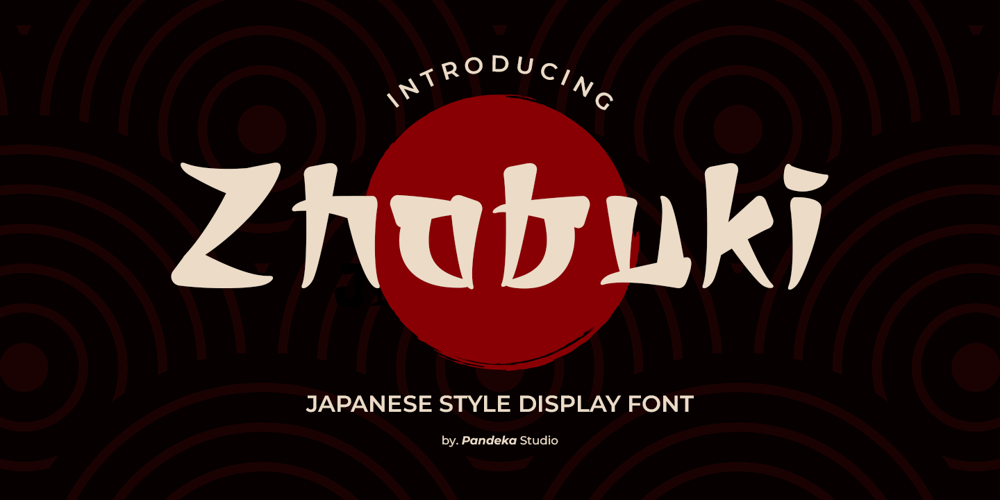
Zhabuki Font Family was designed by Sagara Nararya and published by Pandeka Studio. Zhabuki contains 2 styles and family package options. Konnichiwa and Annyeonghaseyo! 🌸✨Introducing Zhabuki, a stunning display font inspired by the beauty of Japanese and Korean aesthetics. Combining traditional East Asian charm with a modern touch, Zhabuki is the perfect choice for bringing authentic Asian vibes into your designs.Each letter in Zhabuki is carefully crafted, blending traditional artistic elements with contemporary styles. With 30+ unique ligatures and alternates, you can easily create distinctive and captivating typography compositions. This font is ideal for branding, posters, packaging, social media designs, and so much more!What makes Zhabuki even more special is its 30+ unique ligatures, multilingual support, allowing you to communicate your message effectively to a global audience.What’s Included: Main Files formats 2 Styles: Regular and Outline Full Character Set: Uppercase, lowercase, numbers, symbols, and punctuation 30+ Unique Ligatures for creative and unique combinations Easy to Use: Compatible with both PC & Mac Works seamlessly with popular design software like Adobe Illustrator, Photoshop, Microsoft Word, Canva, and more PUA Encoded: All features accessible without additional software Language Support: Danish, English, Estonian, Filipino, Finnish, French, Friulian, Galician, German, Gusii, Indonesian, Irish, Italian, Luxembourgish, Norwegian Bokmål, Norwegian Nynorsk, Nyankole, Oromo, Portuguese, Romansh, Rombo, Spanish, Swedish, Swiss-German, Uzbek (Latin)Thank you and happy designing!Pandeka Studio